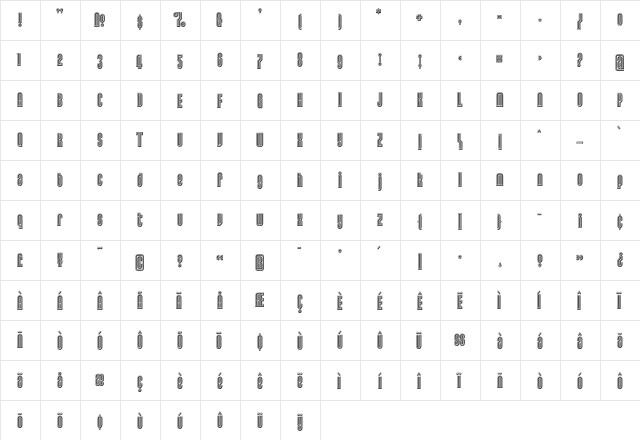
Lusta OneSixtySans
Design Context for Lusta Typeface
Lusta is a composed and adaptable typeface that performs quietly and consistently across a wide range of design contexts.